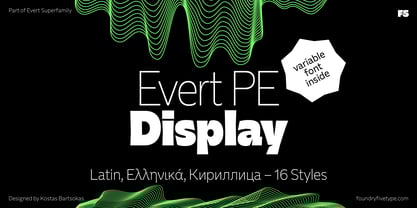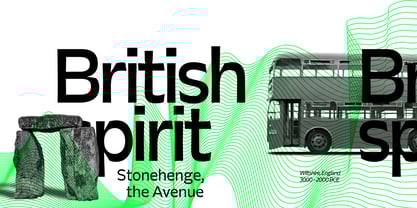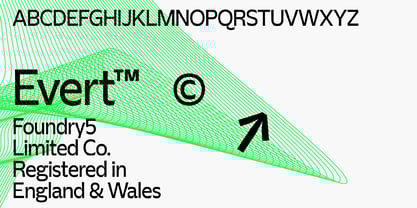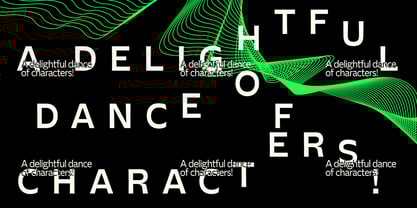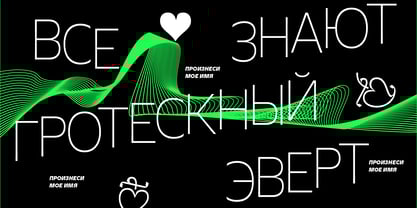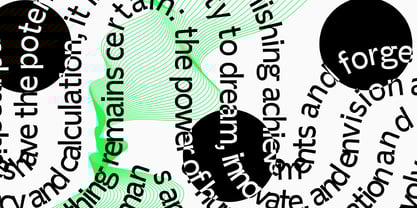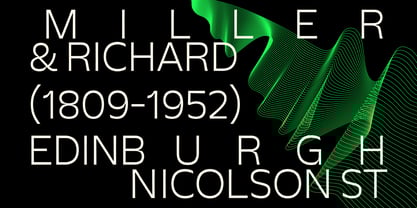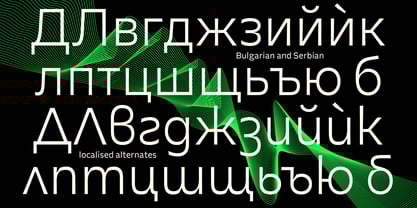
Evert PE Display
The Evert PE Display Font Family was designed by Kostas Bartsokas and published by Foundry5. Evert PE Display contains 16 styles and family package options.
Welcome to the world of Evert, a typeface that breaks the mould while respectfully nodding to its classic roots. Like a themed rollercoaster it invites you on a ride over the plains of the early grotesques, into the tunnels of mechanical essence, up on the hills of the experimental, and over the district of contemporary modernity. This clearly isn’t your grandma’s typeface! Evert invites you to explore a whole new world of expressive design. It’s like a dance party where style and functionality bust a move in the most delightfully grotesque way. It’s genetic makeup holds the essence of Miller and Richard’s Grotesque No.1, mixed with hints of inspiration from Roger Excoffon’s Antique Olive and Evert Bloemsma’s FF Balance. The result is a unique blend of subtle rigidity and humanistic elegance, a quirky concoction of tradition and innovation, where every element adds its own spark to the typographic feast. Evert PE (Pan European) supports Latin, Cyrillic, and Greek and offers goodies such as localised forms, old-style numerals, tabular numerals, and discretionary ligatures. It comes in 48 styles and 3 optical sizes – text for your lengthy documents, display for wowing your crowds, and plain Evert for when you want the best of both worlds. So go ahead, unleash your inner typographic maverick and let Evert be your partner in crime on this epic journey.
About Foundry5
Foundry5 is a type foundry dedicated to the design and production of fonts for diverse world scripts. Established by Kostas Bartsokas, Mohamad Dakak, Jason Harcombe, and Pria Ravichandran, the foundry was born out of a shared passion for typography and a deep respect for the cultural significance of each writing system. Our team combines extensive experience across multiple typographic disciplines to offer bespoke type design solutions tailored to an ever-expanding global landscape.We are committed to the philosophy that every script is unique and presents its own design possibilities. Whether designing for widely used or lesser-known scripts, we treat each with equal care and creativity, ensuring that the cultural context and design potential of every script are fully explored. Foundry5 believes in pushing the boundaries of what typography can achieve, especially in an increasingly interconnected world where type is a vital element of communication across different languages and cultures.Our work spans multiple writing systems, reflecting our mission to create typefaces that not only serve the technical requirements of various scripts but also reflect their beauty and heritage. By blending innovation with cultural sensitivity, Foundry5 aims to shape the future of global design and communication through thoughtful, world-class typography.